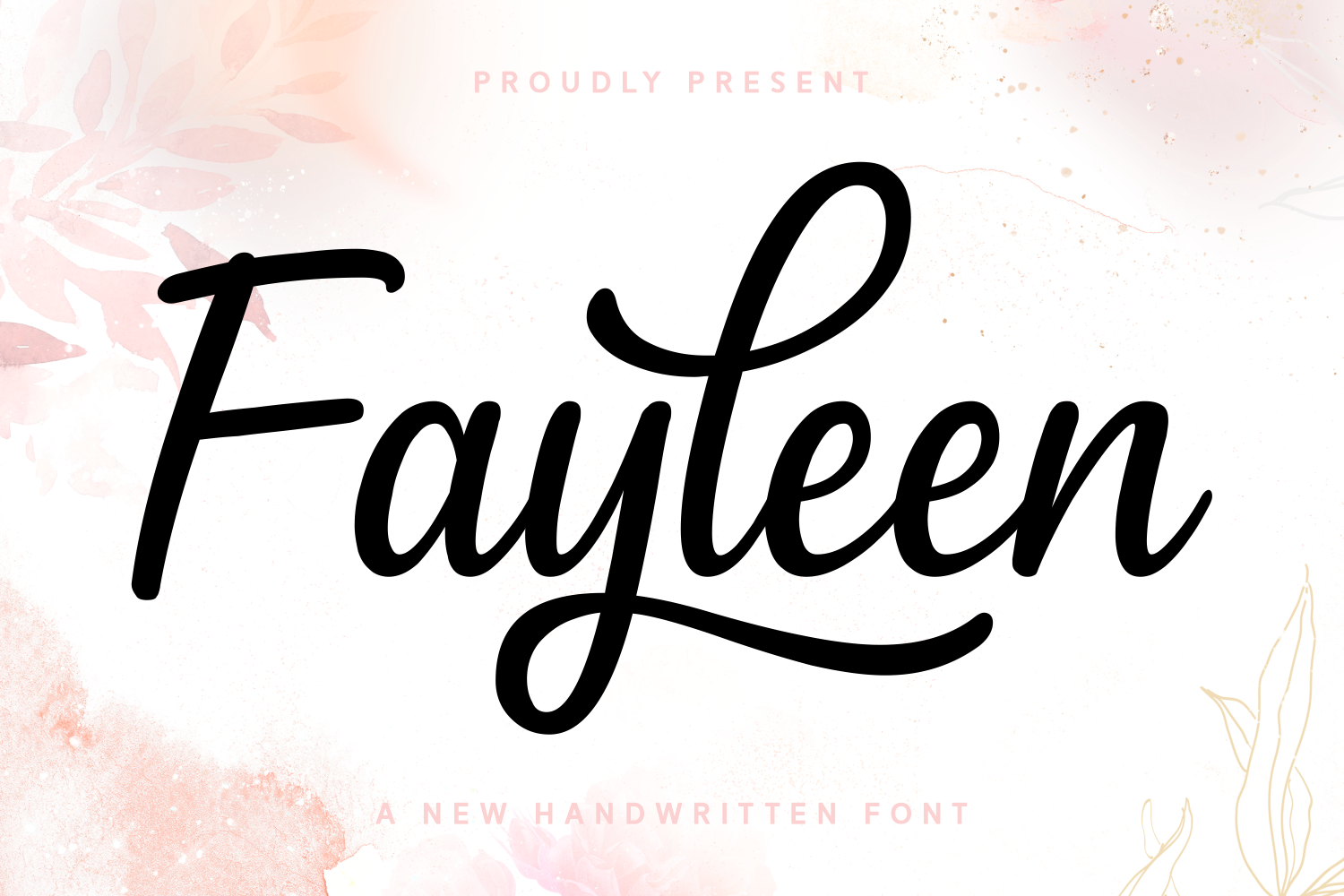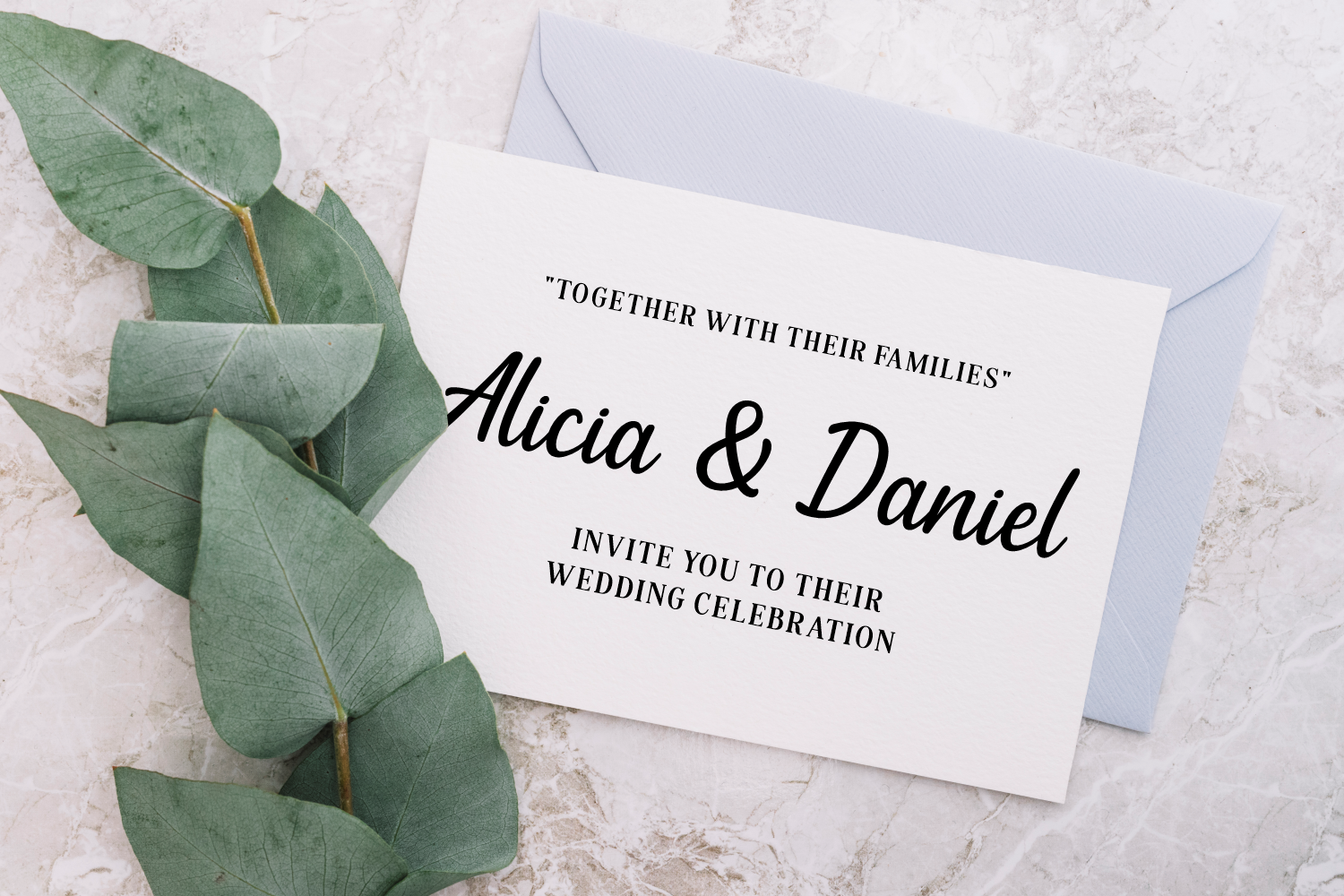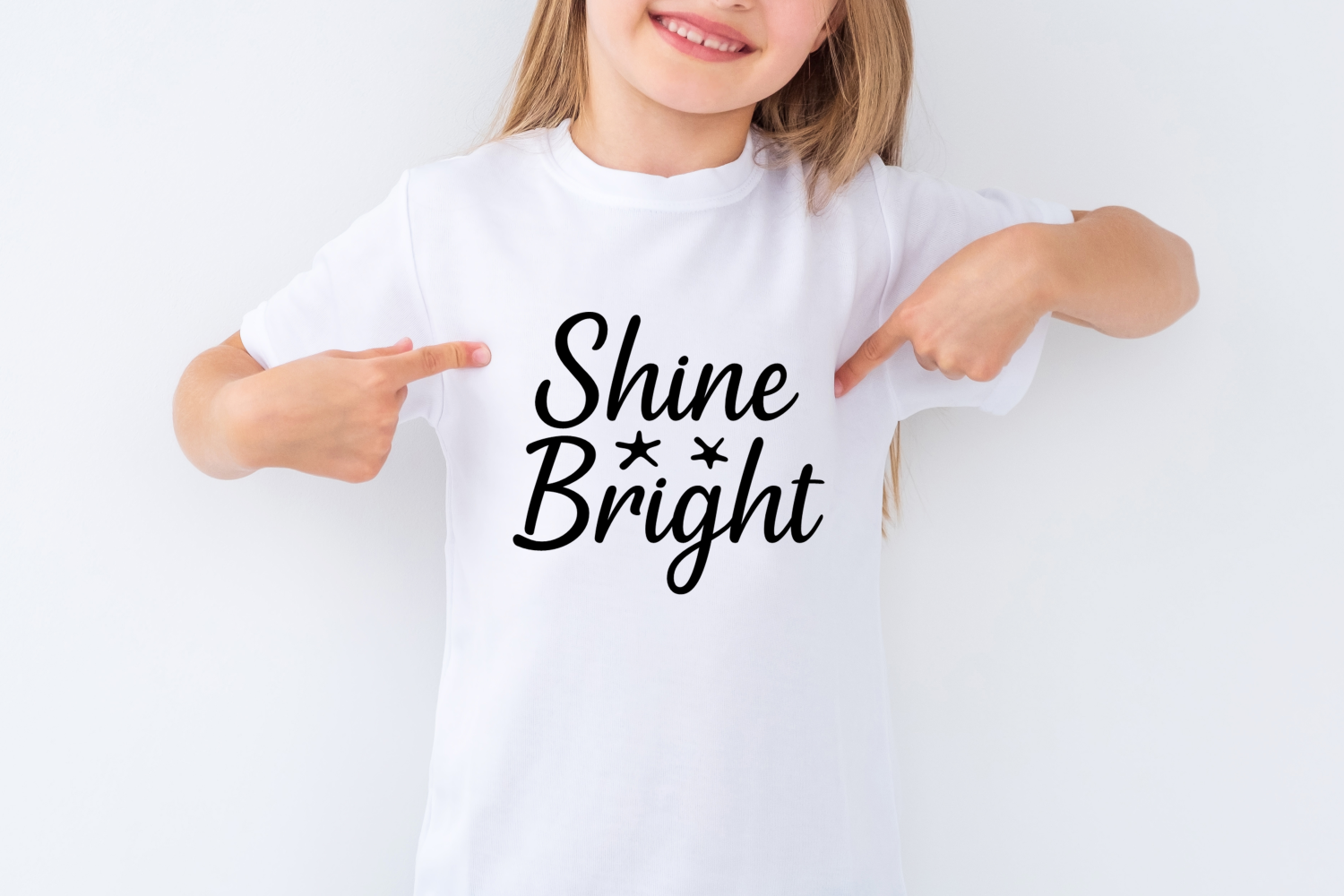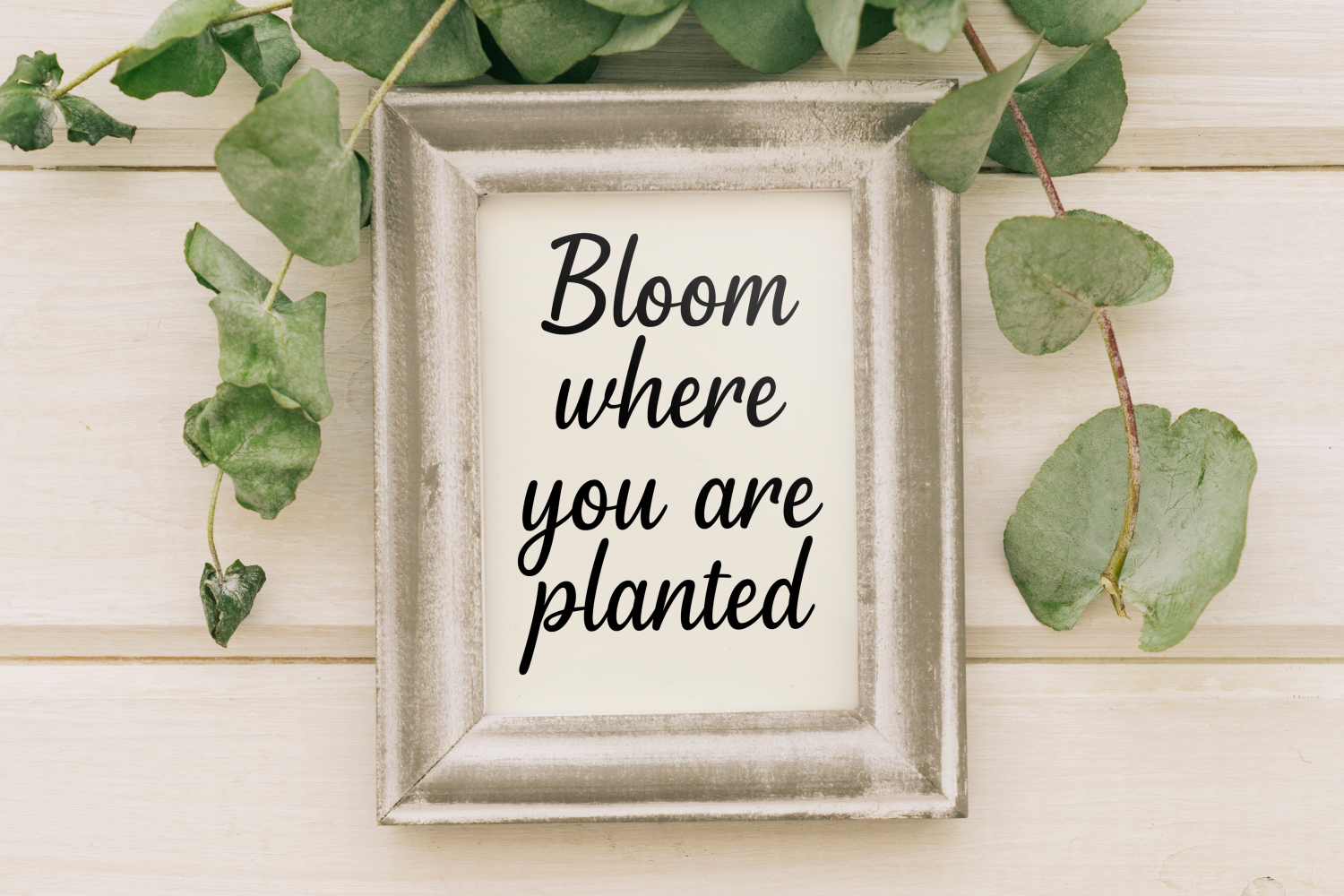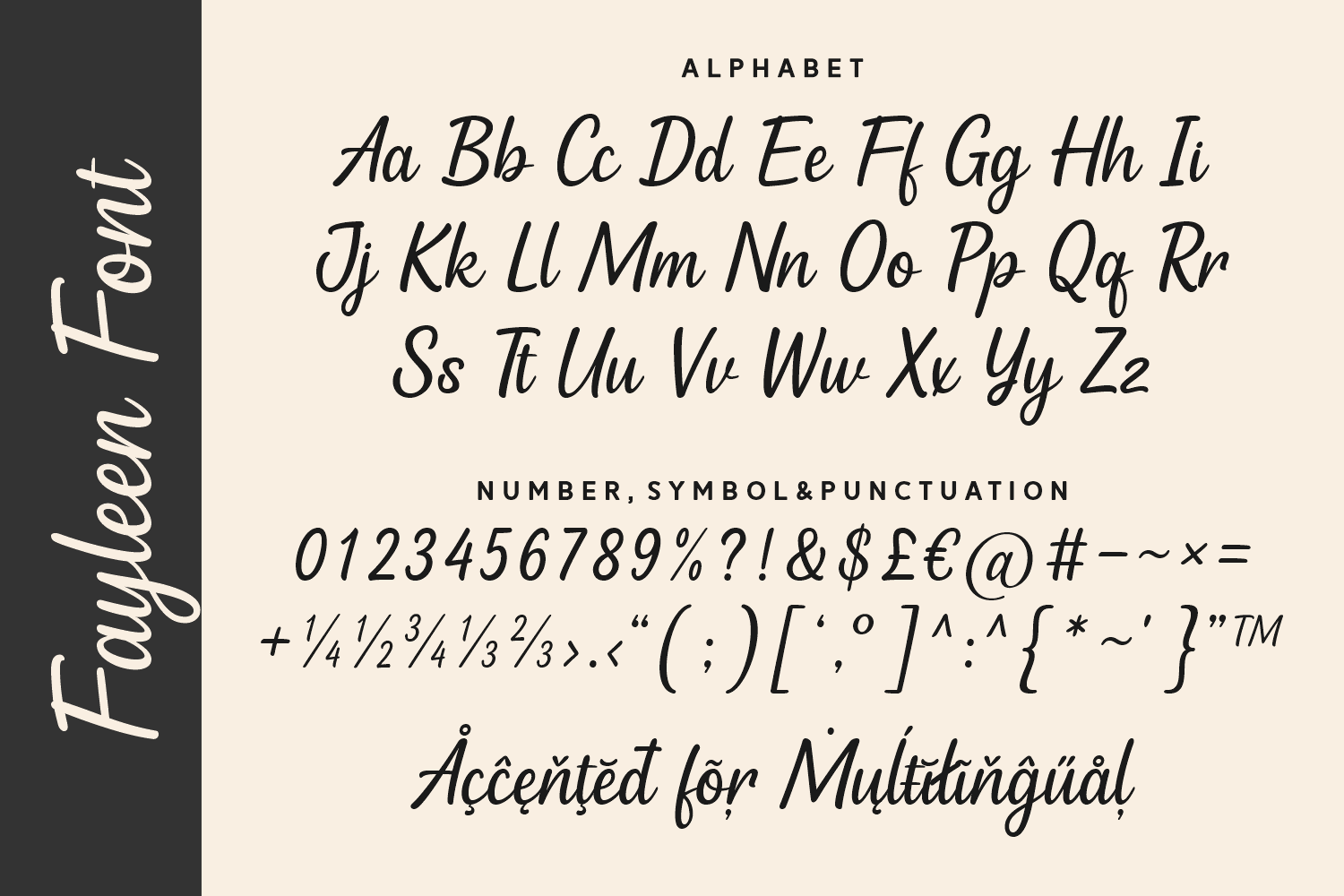
Fayleen is a clean and graceful handwritten font that radiates charm and warmth. With smooth strokes and a natural flow, it’s perfect for personal branding, logos, Instagram quotes, greeting cards, and lifestyle blogs. Fayleen adds a soft, friendly touch to every design.